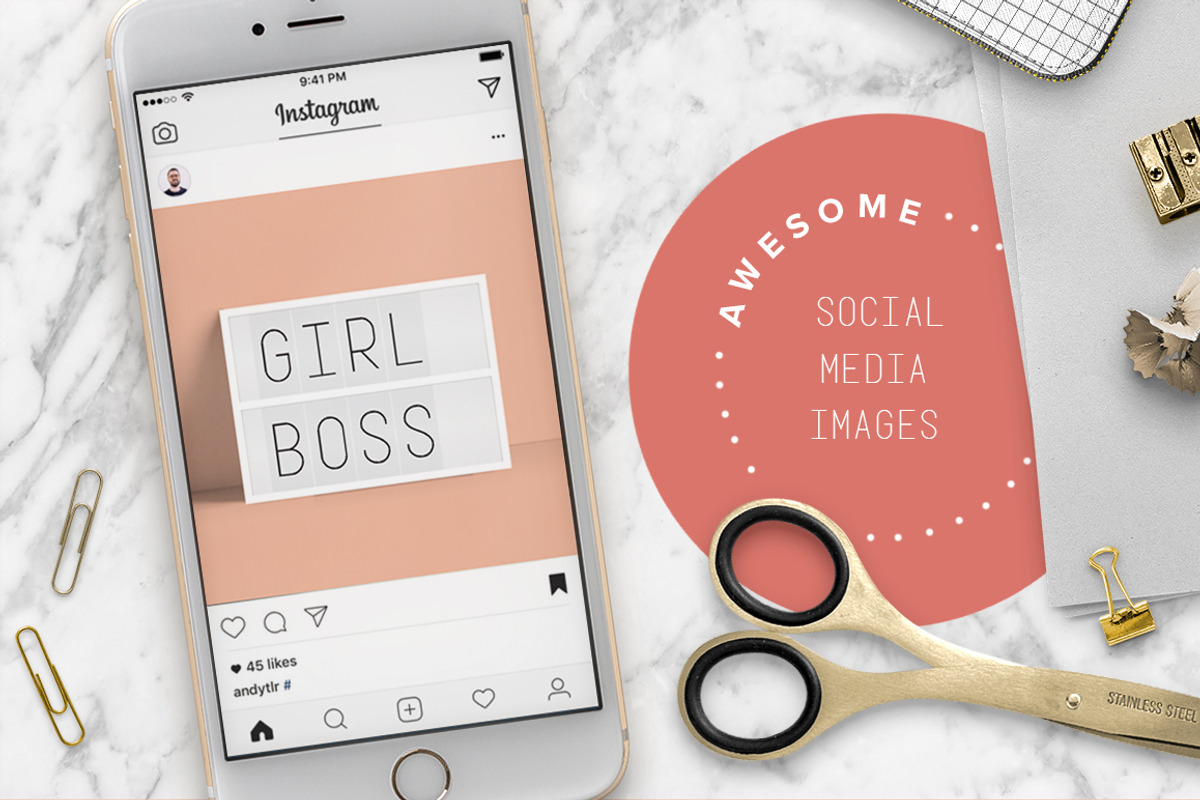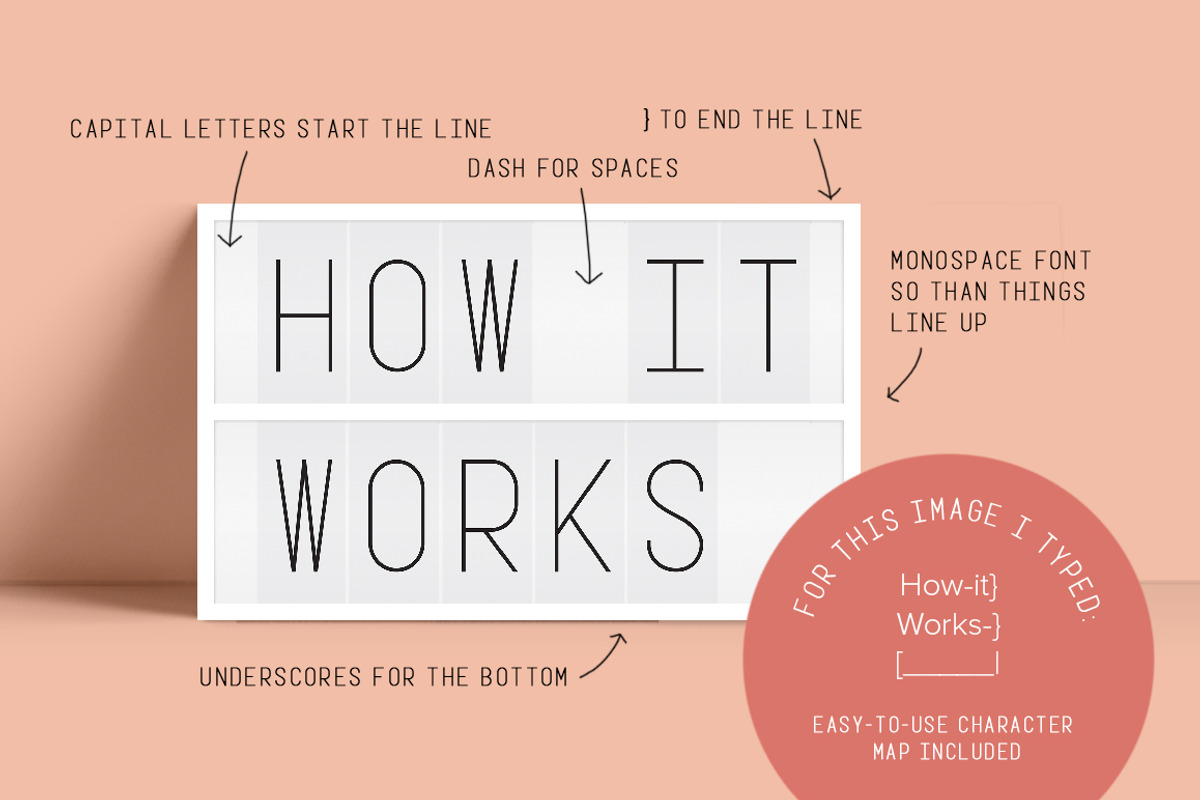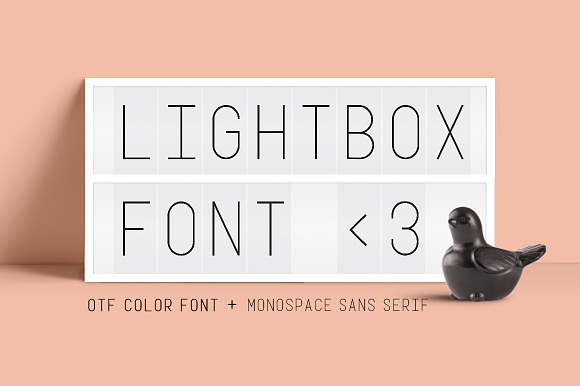
Lightbox Color Font
Hey there! Have you seen the awesome light boxes that are trending these days, featuring cute quotes and witty sayings? I love this look! It's such a fun look to integrate into social media, web headers, or marketing content, but creating the look digitally could be time consuming! So this color font makes the lightbox look super achievable and easy!
This font makes it possible to create a super cute lightbox just by typing!
Here's how you use this font!
Capital letters start a line on the lightbox. Keep typing in lowercase letters.
Use dashes (-) for regular spaces or for small spaces
Use } or / to end the lightbox line.
Use underscores () to make the bottom of the lightbox. Left brackets [ and lines | make large and small pieces for the bottom of the box.
Adjust the leading to squish the lines together! The leading should be about 70% of the font size.